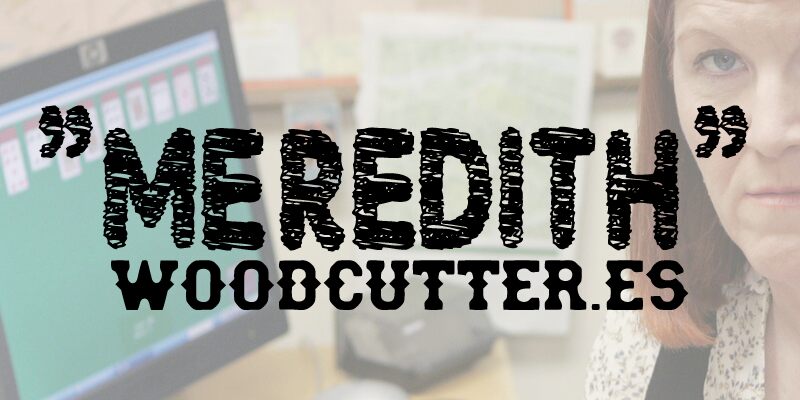
Meredith
Meredith by Woodcutter Manero is a captivating display font that exudes a rugged, weathered aesthetic. The irregular, eroded letterforms convey a sense of weathered resilience, evoking a raw, industrial charm. The condensed width lends a sense of urgency and dynamism, drawing the eye with its bold presence. This font's distinctive character makes it a standout choice for projects seeking a strong, impactful visual identity.
Meredith's striking appearance lends itself well to a variety of applications, from eye-catching headlines and logos to rustic product packaging and editorial design. Its versatility allows it to seamlessly integrate into diverse design contexts, from urban-inspired branding to vintage-inspired layouts. Whether crafting a bold statement or complementing a more gritty, industrial aesthetic, Meredith by Woodcutter Manero is a font that commands attention and leaves a lasting impression.